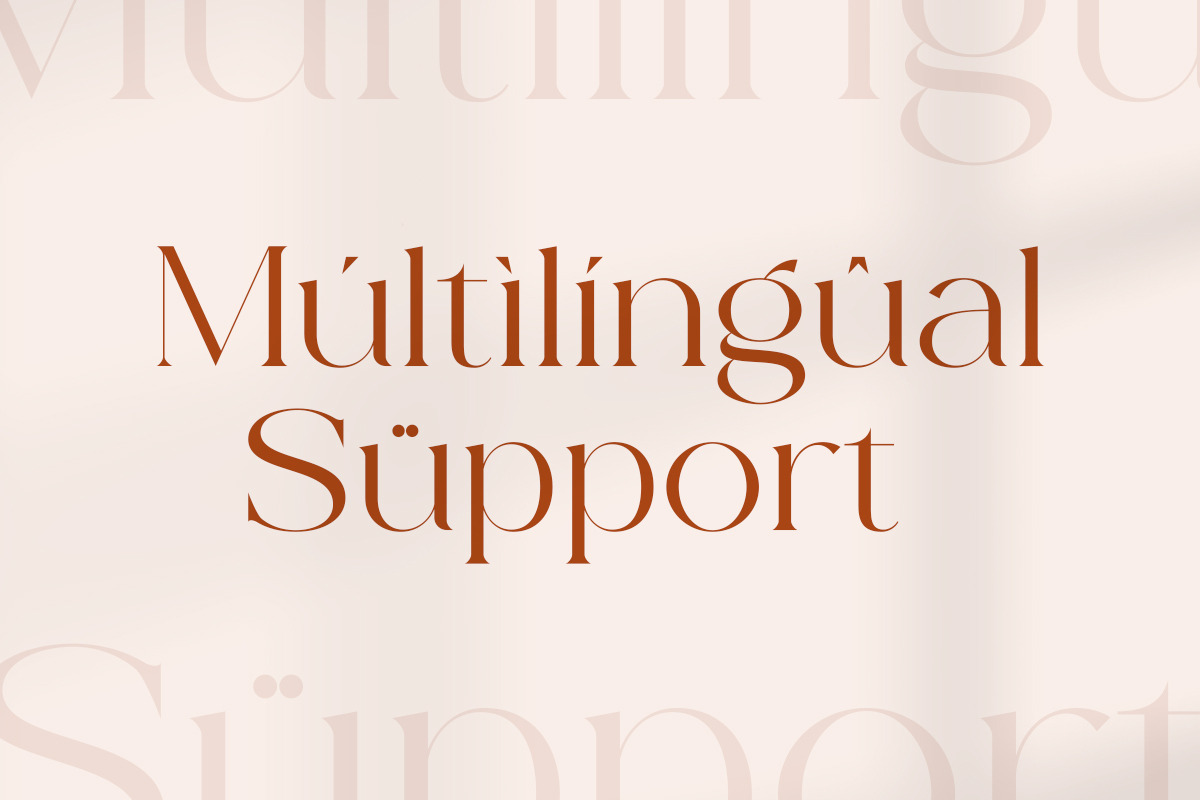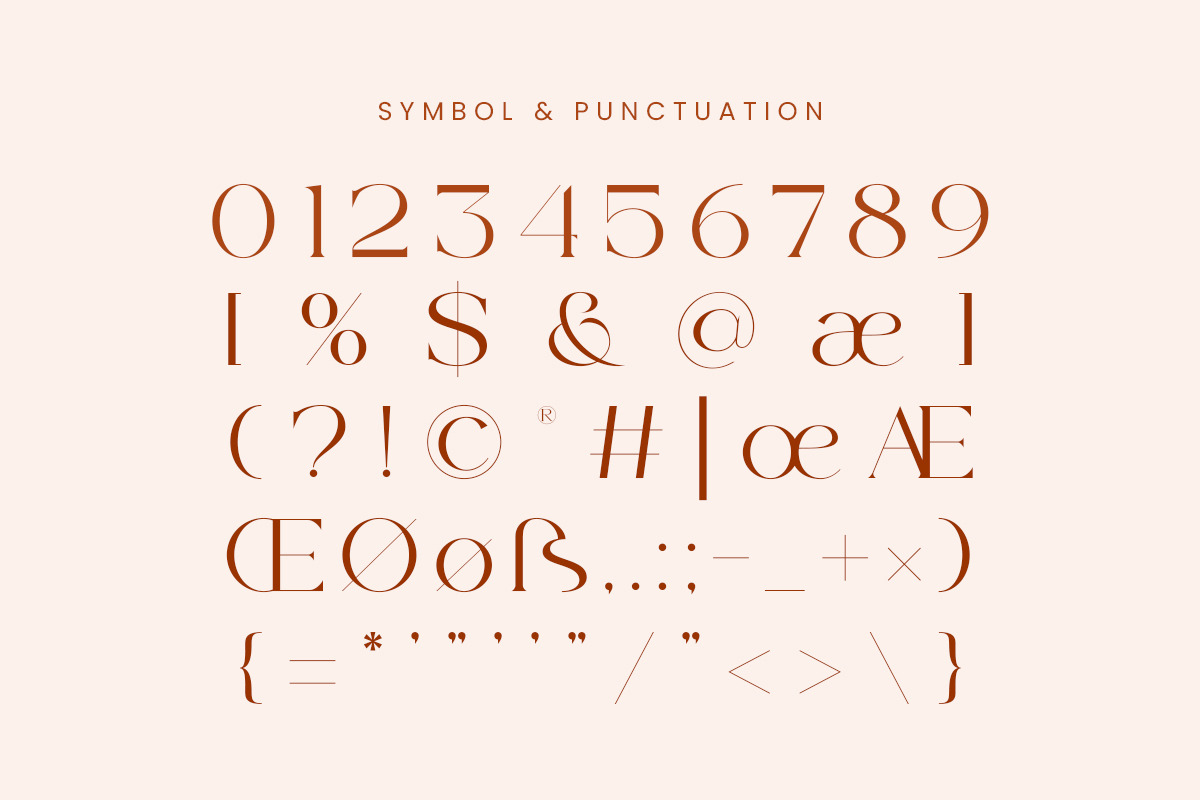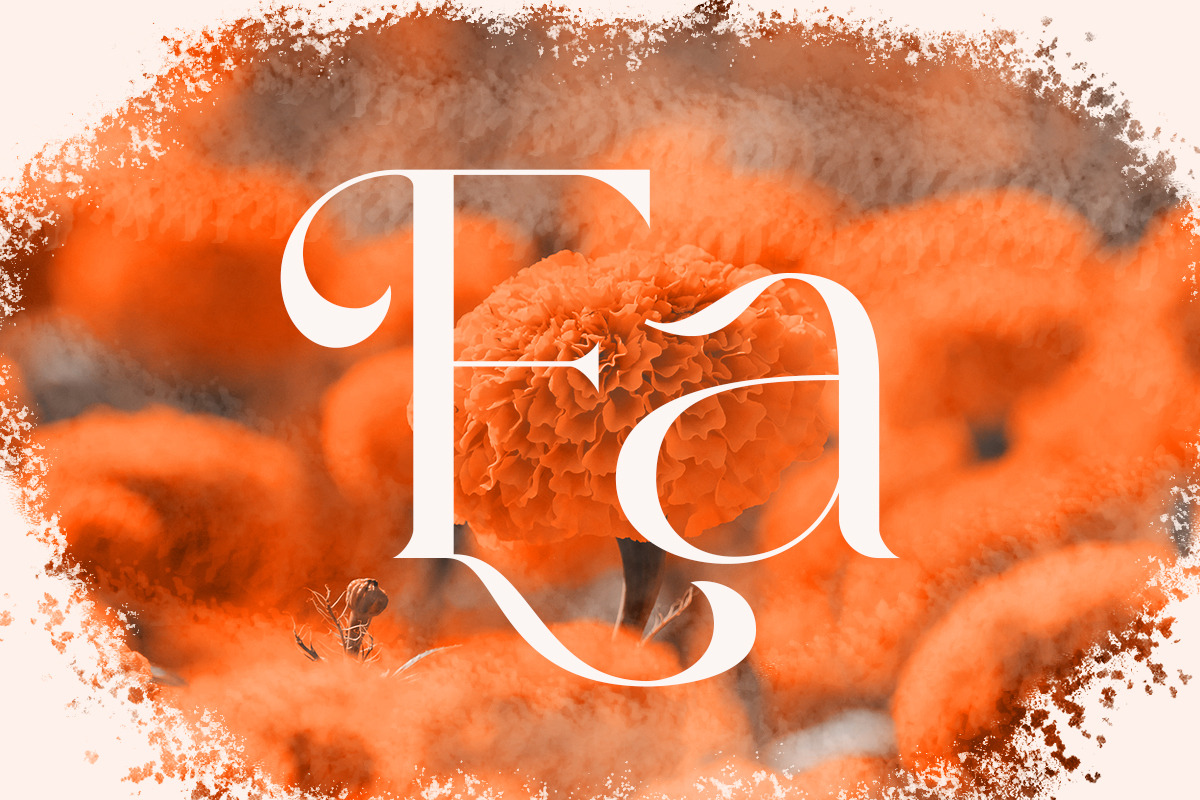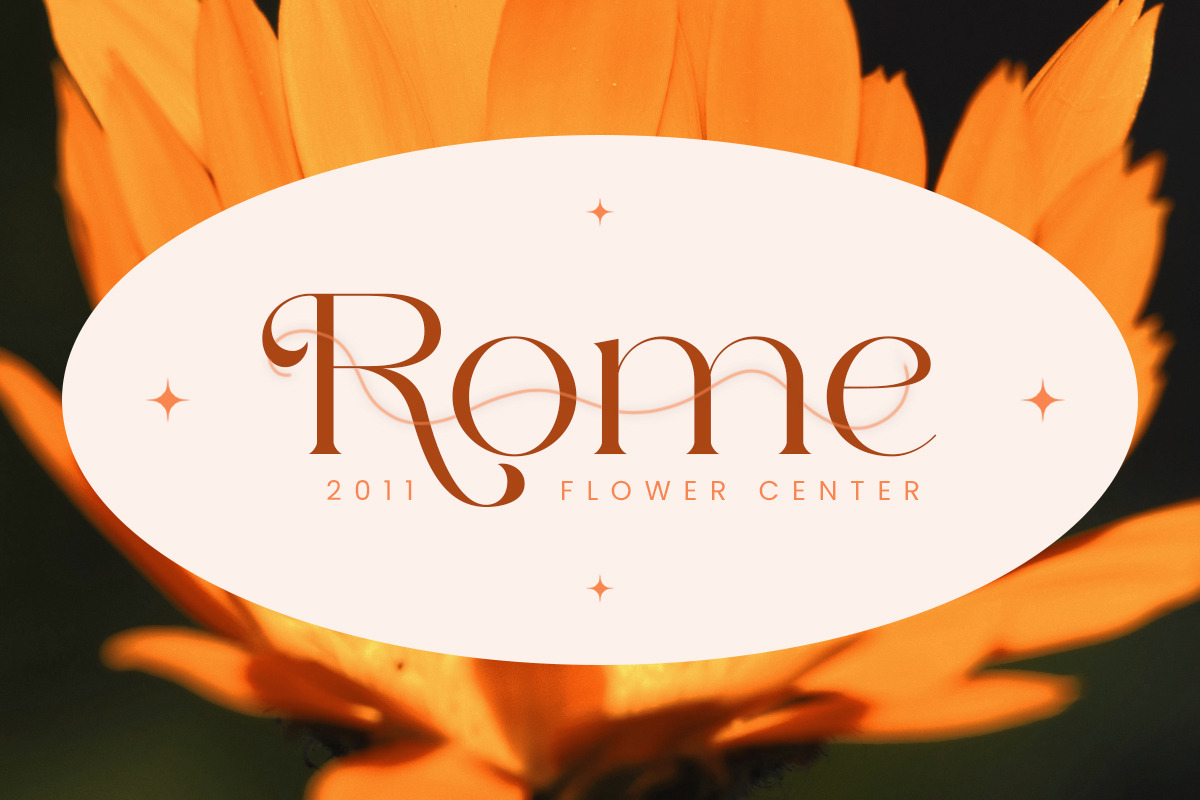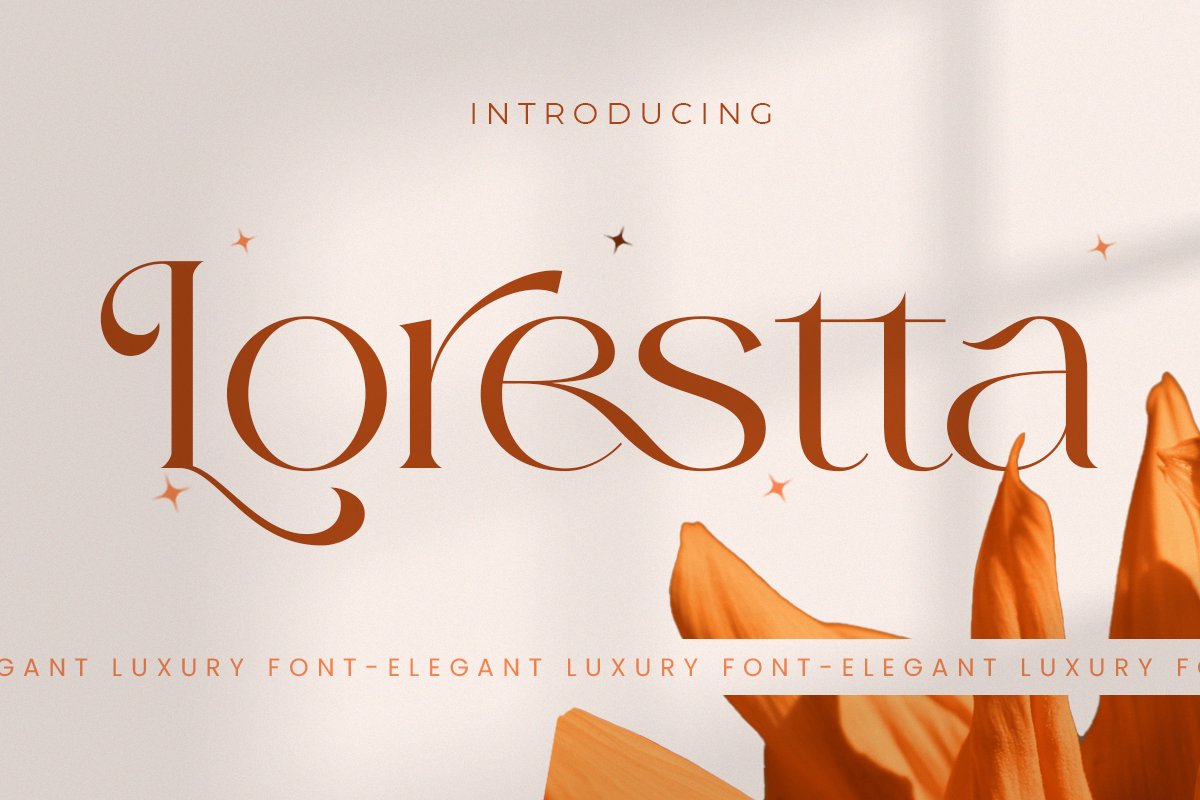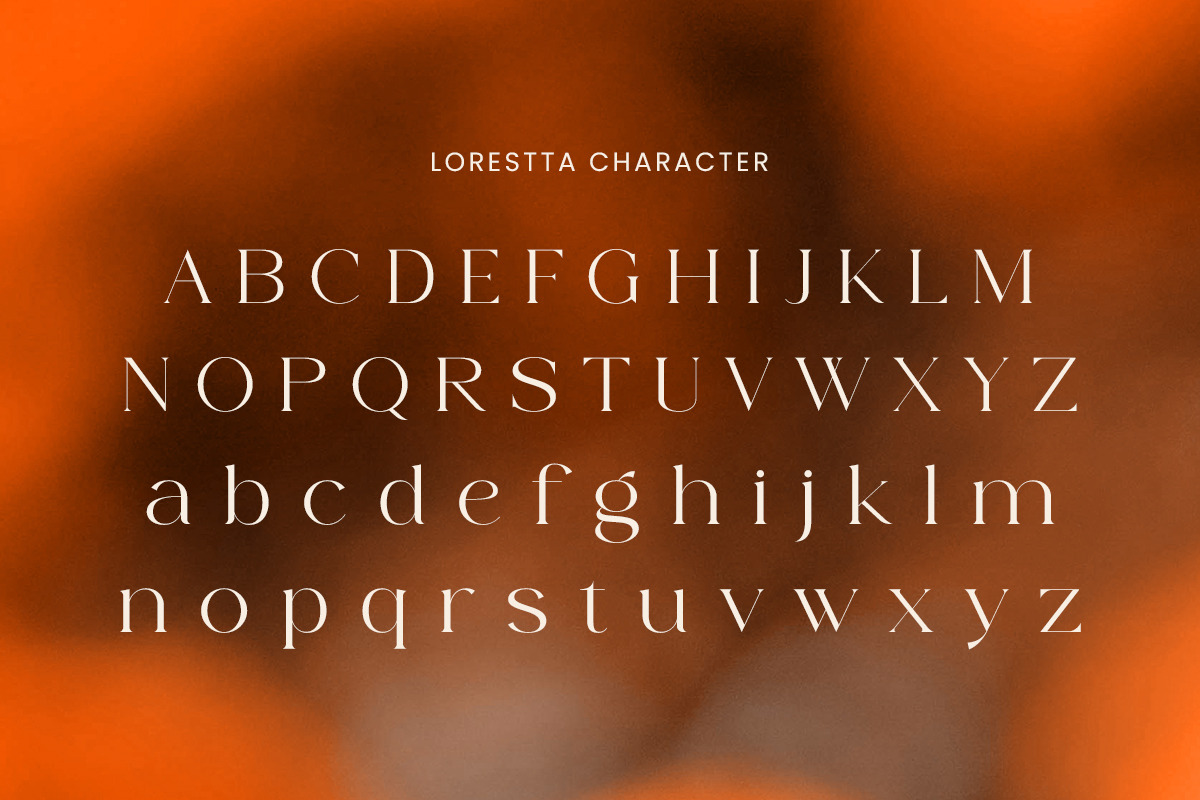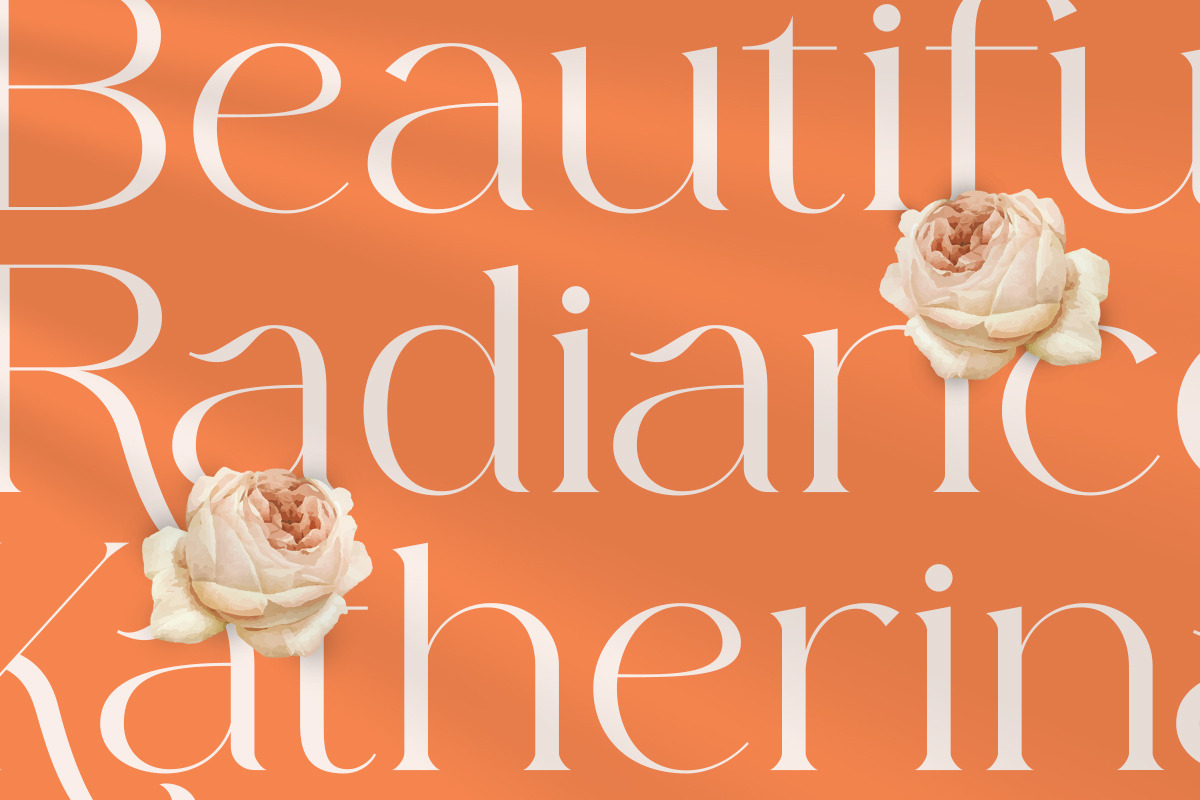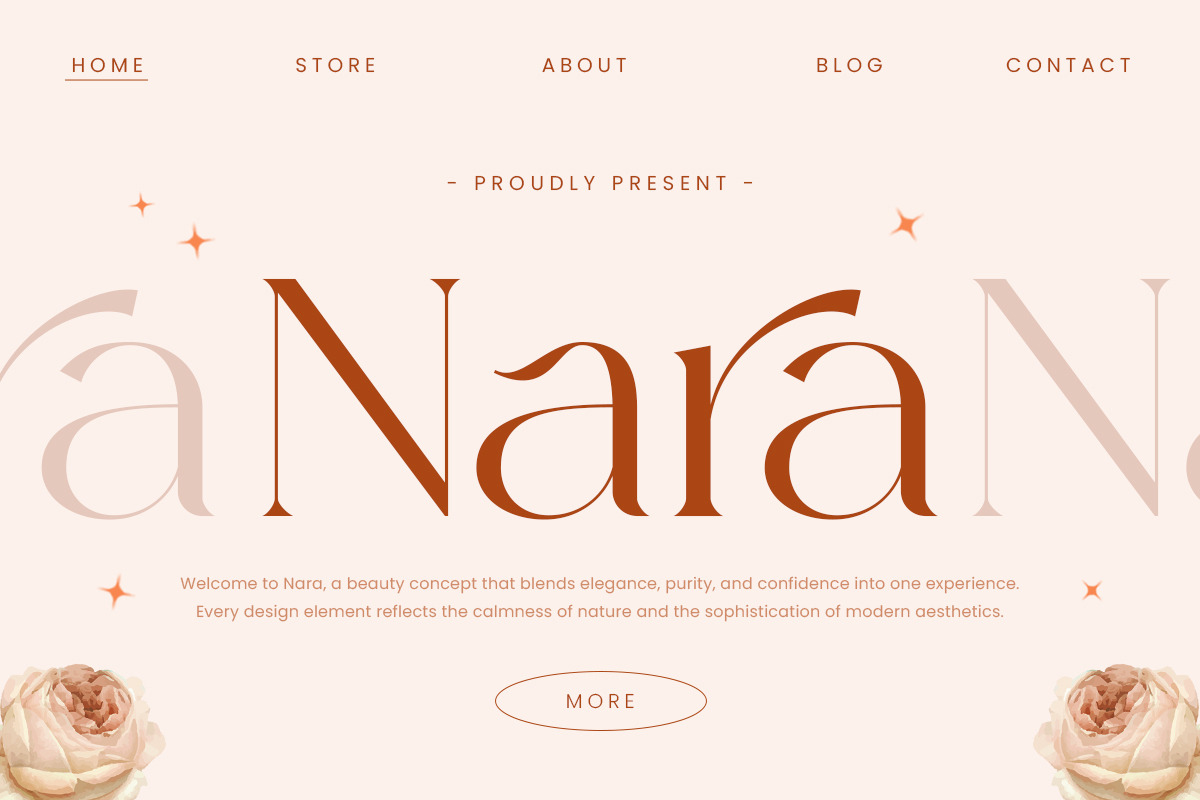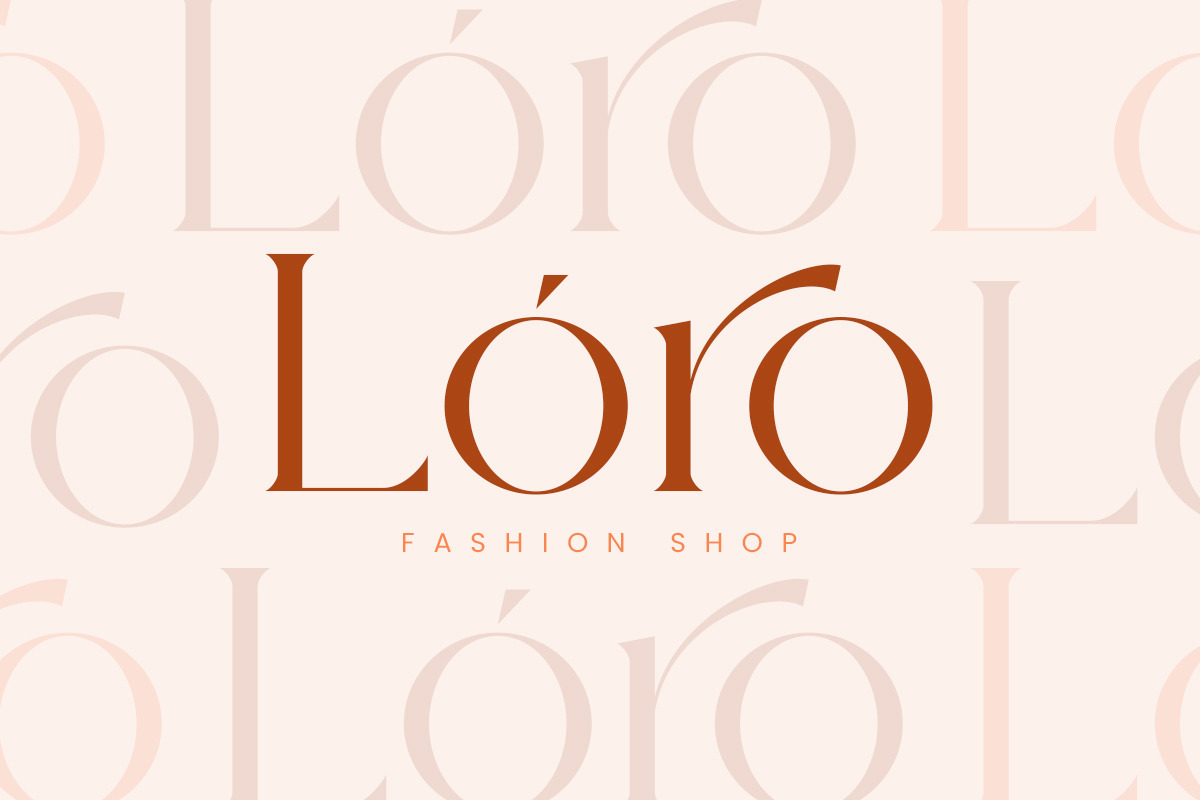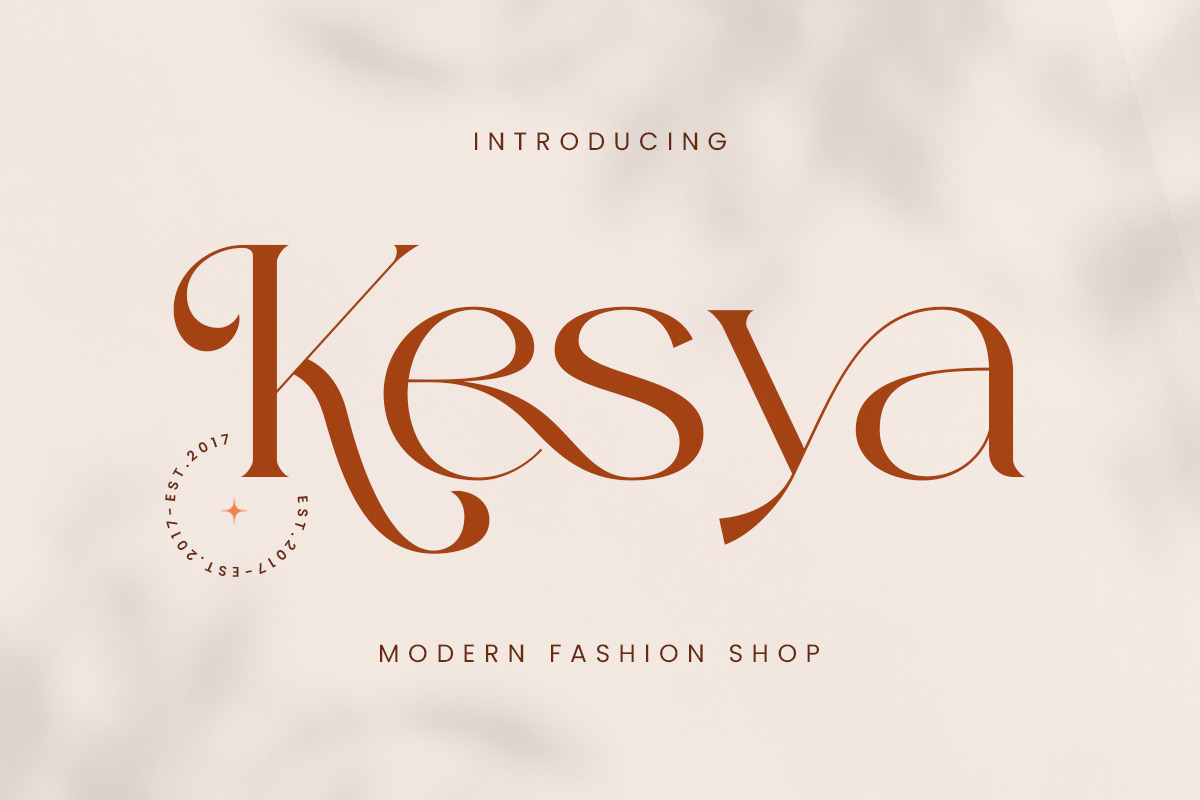
Lorestta // Elegant Luxury Serif
Lorestta is a sophisticated serif font that captures the essence of timeless elegance and soft femininity. With refined curves and graceful letterforms, every character exudes confidence and charm, making it perfect for designs that seek both luxury and warmth. This font is designed to bring high-end beauty to your branding, ideal for fashion logos, wedding stationery, editorial layouts, and elegant packaging. Lorestta includes a set of stylish ligatures and alternate characters to add unique flair and creative versatility to your typography projects. Whether you're crafting a luxury brand logo or an editorial headline, Lorestta will effortlessly elevate your design with a touch of refined sophistication. Perfect for logo, branding, wedding, magazine, and packaging design and much more.
Uppercase & lowercase
Alternates & ligatures